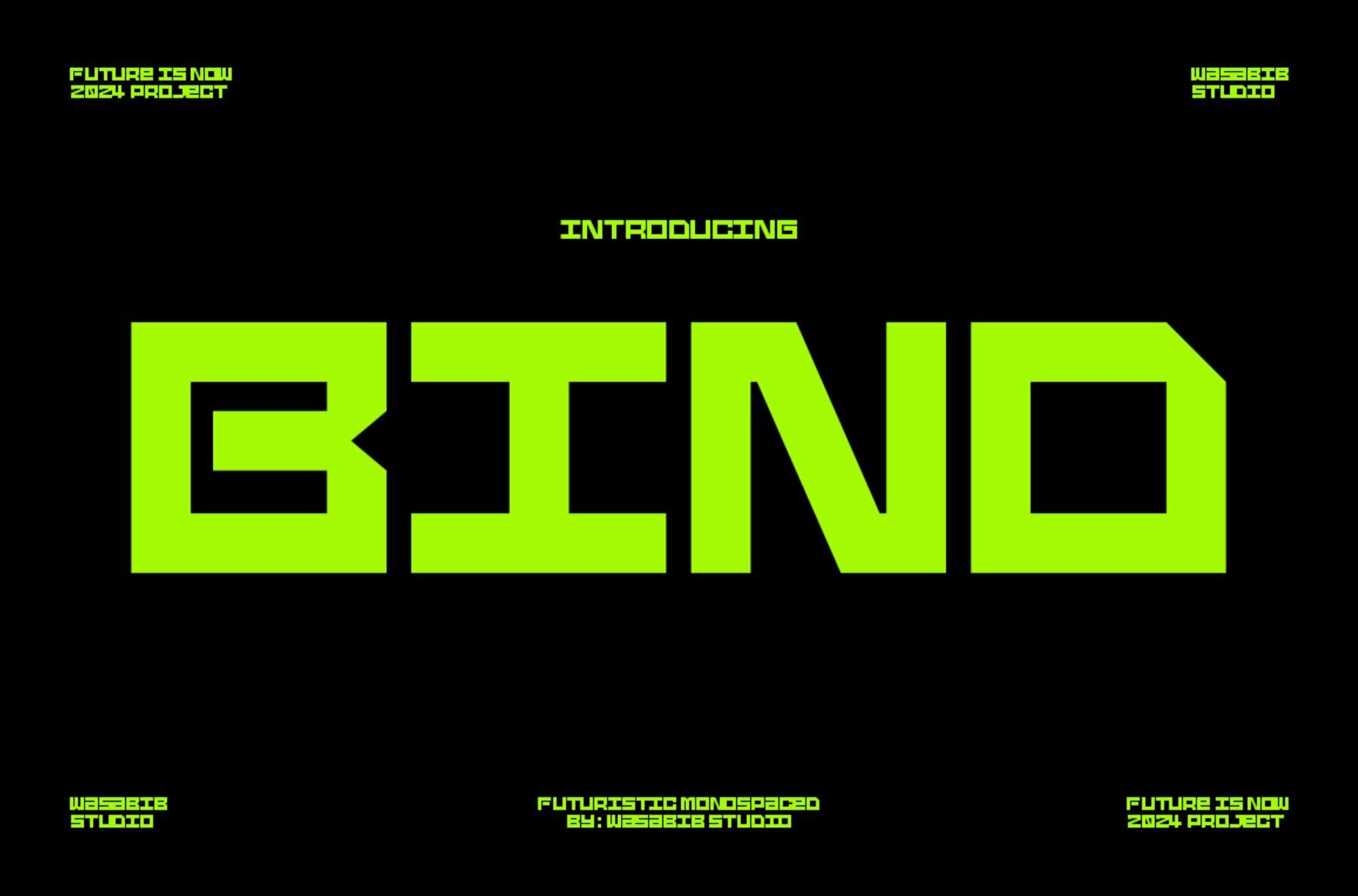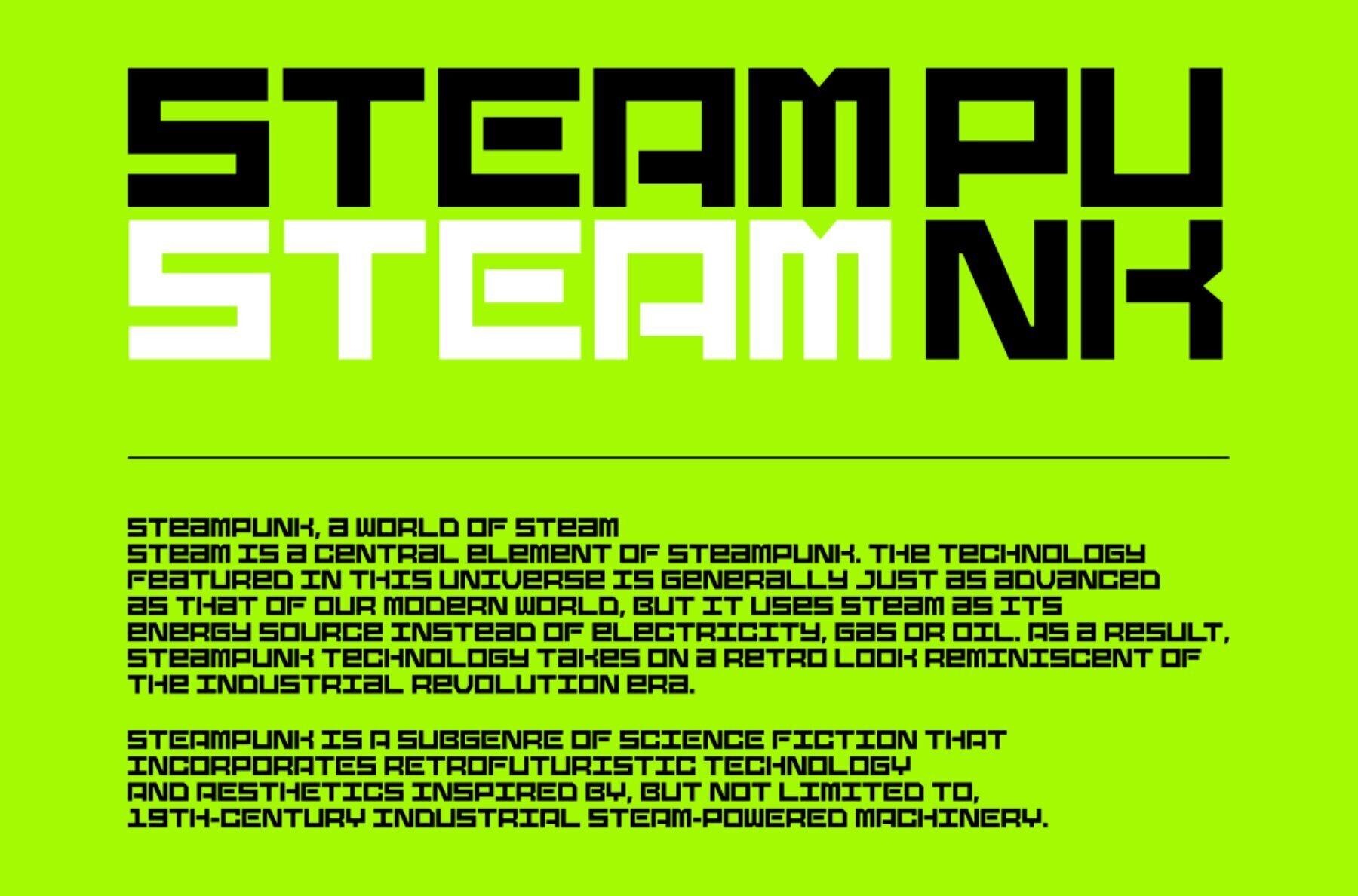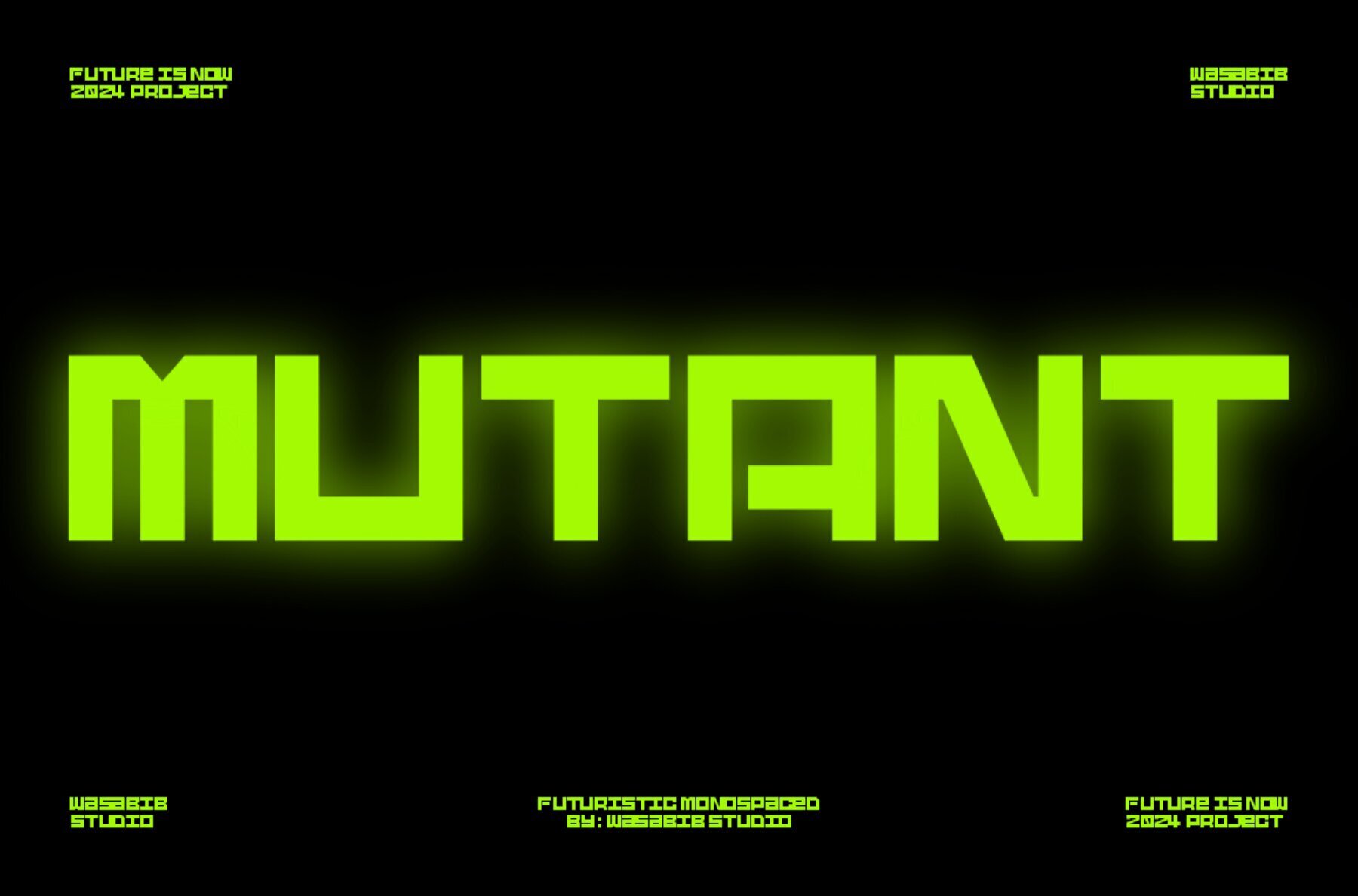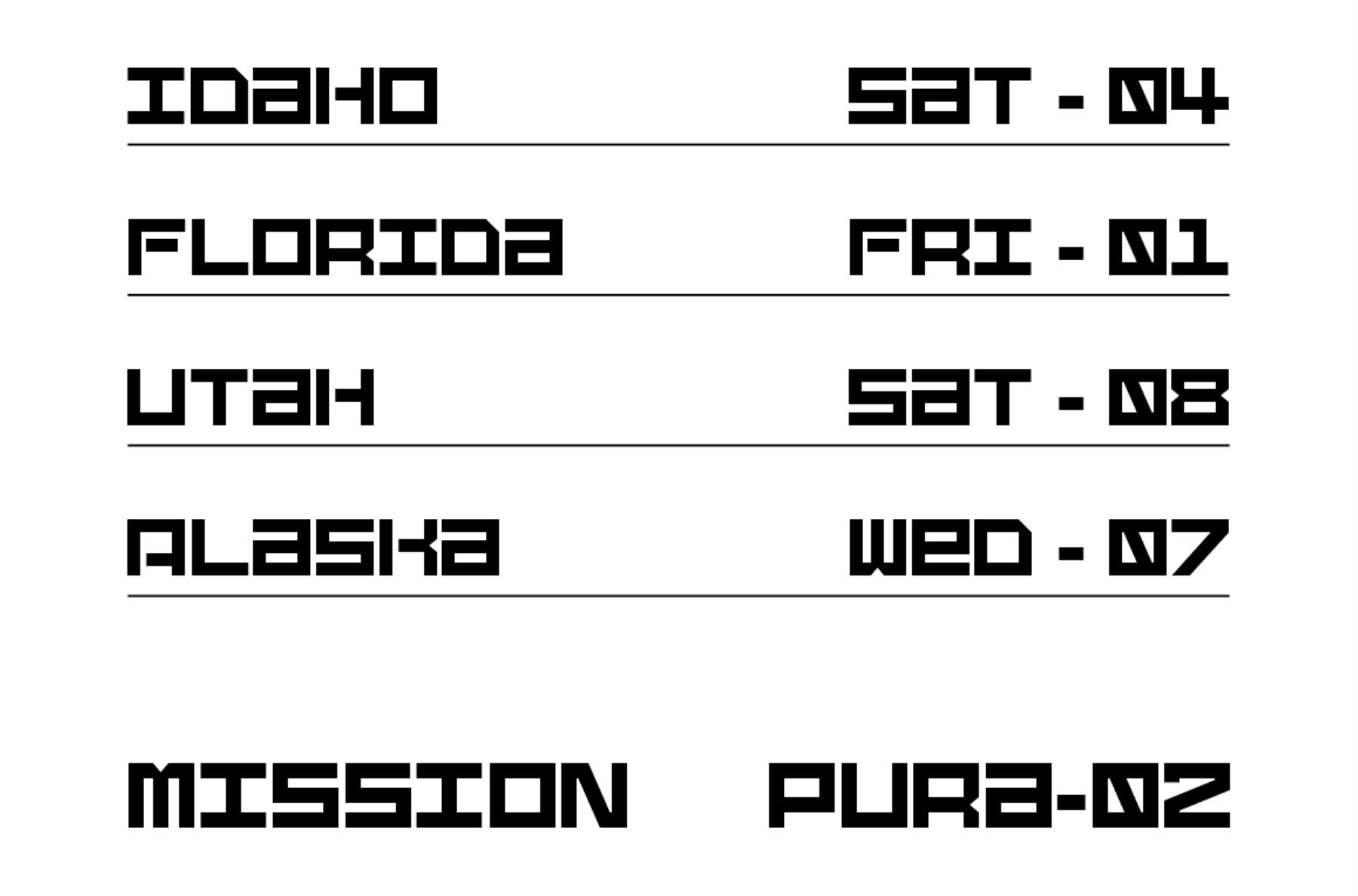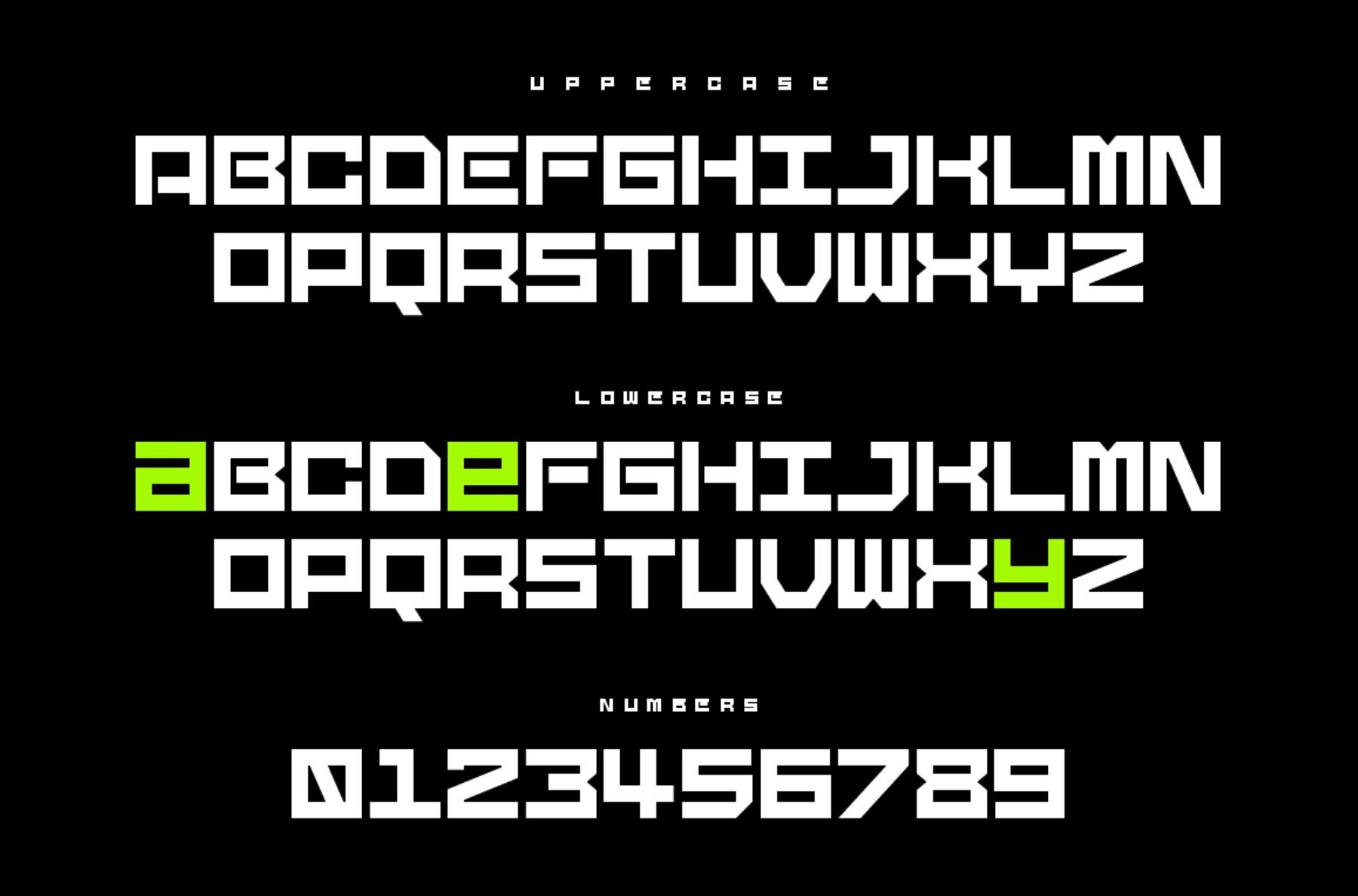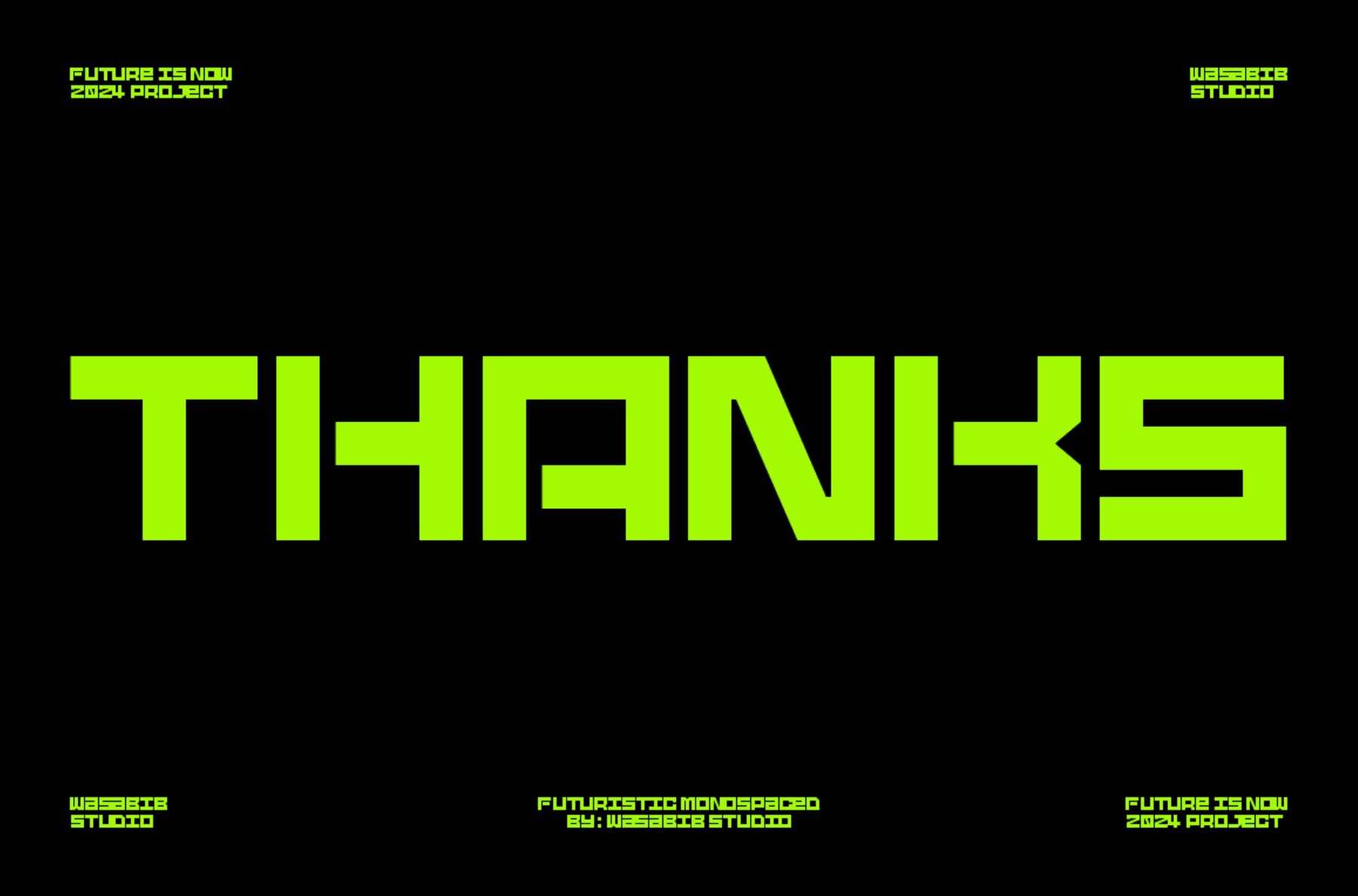
Bind Font
WS Bind Regular
WS BIND is a font that embodies a technical and futuristic aesthetic, making it ideal for modern design projects. Its distinctive sharp corners and straight lines create a forward-looking, geometric appearance that aligns perfectly with themes of technology, science, and engineering.
This font style is well-suited for a variety of applications, offering a sleek and contemporary edge to any visual composition. Whether you're designing digital interfaces, engineering graphics, or science-related projects, WS BIND provides a precise, polished look that enhances the overall design.